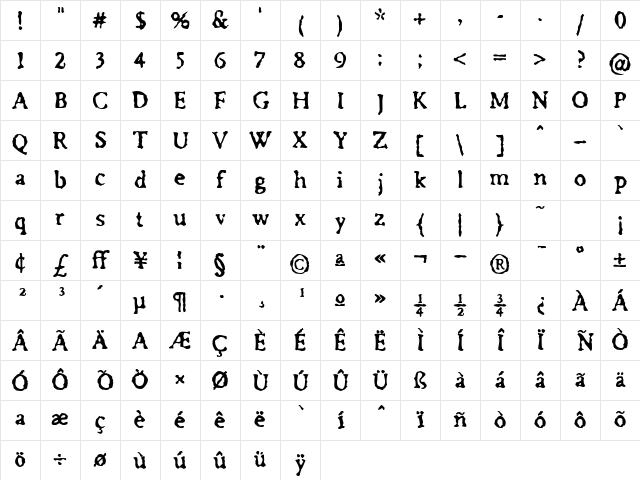
Irregular Bold is a composed and adaptable typeface that performs quietly and consistently across a wide range of design contexts. Its bold stroke weight gives it real presence on the page.